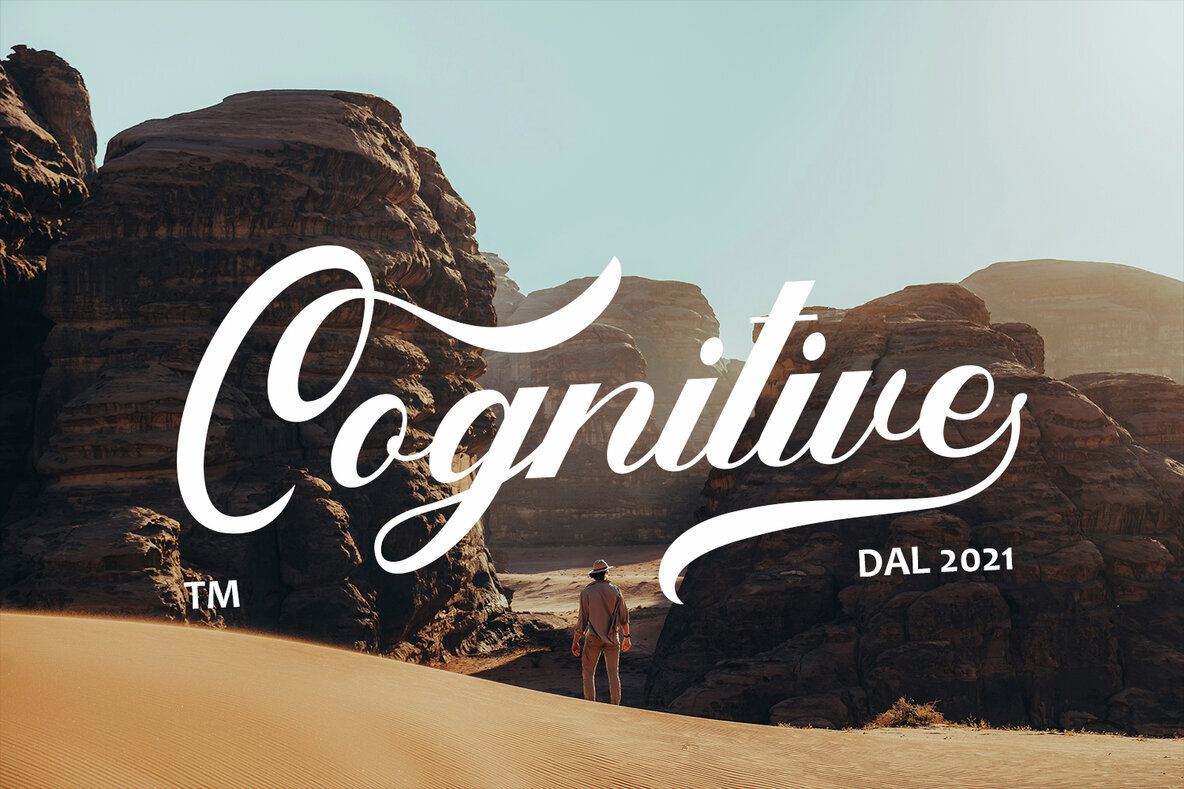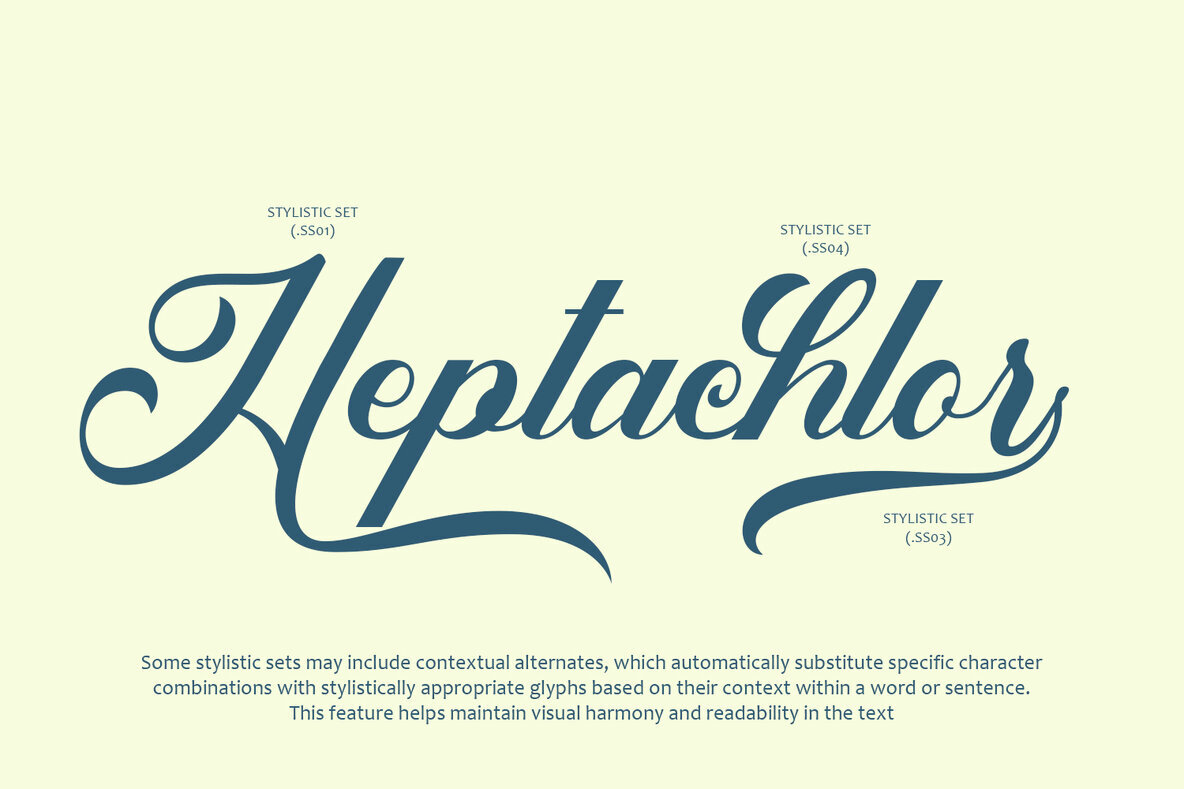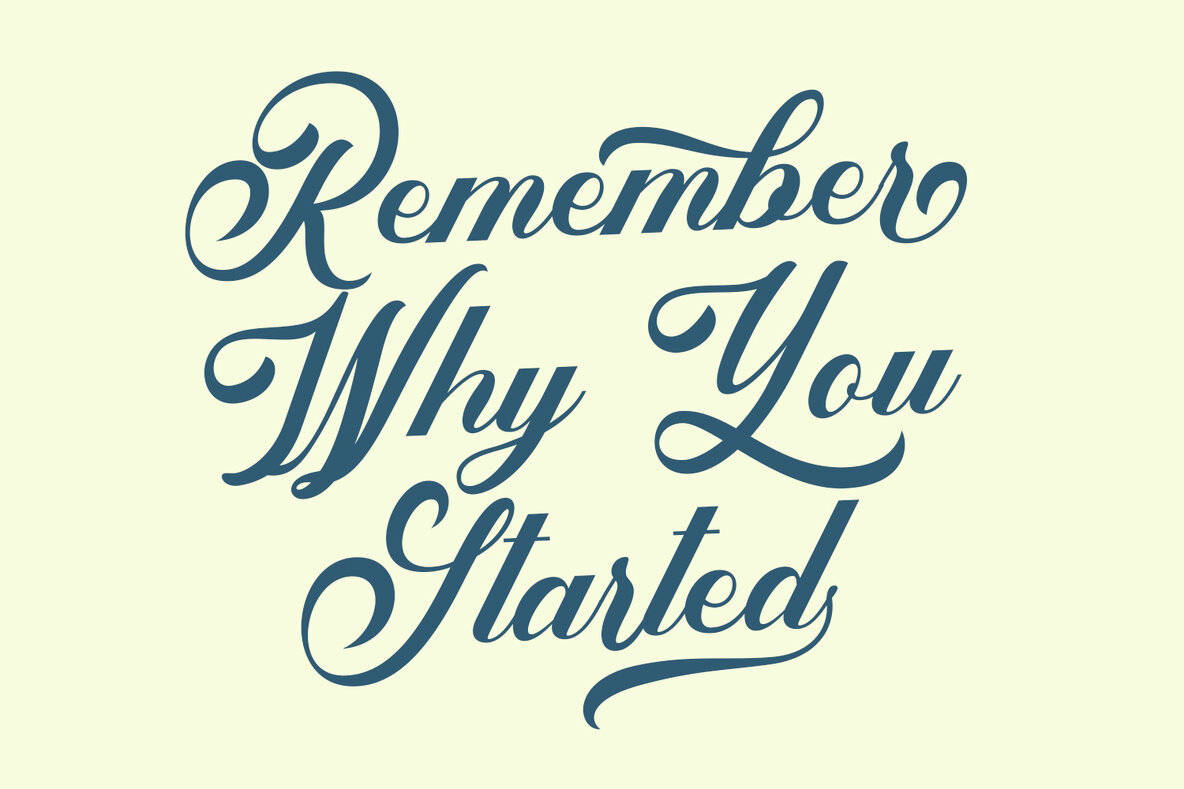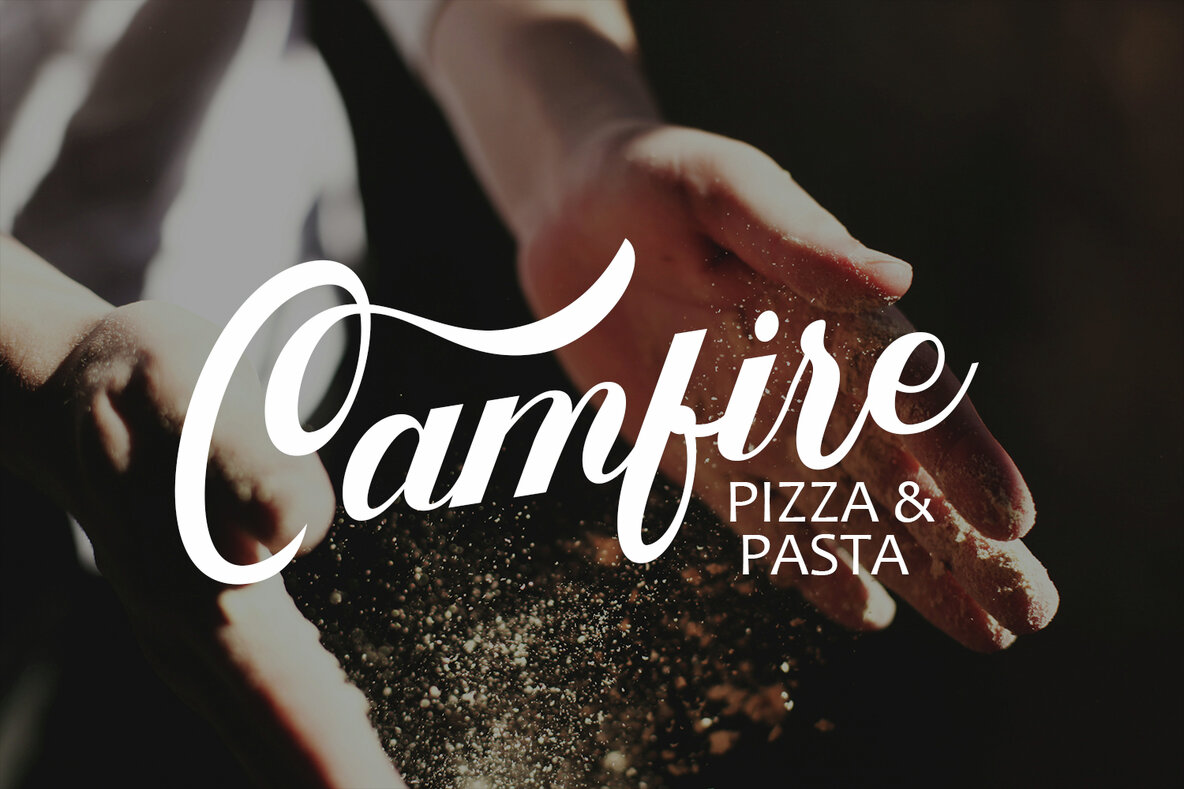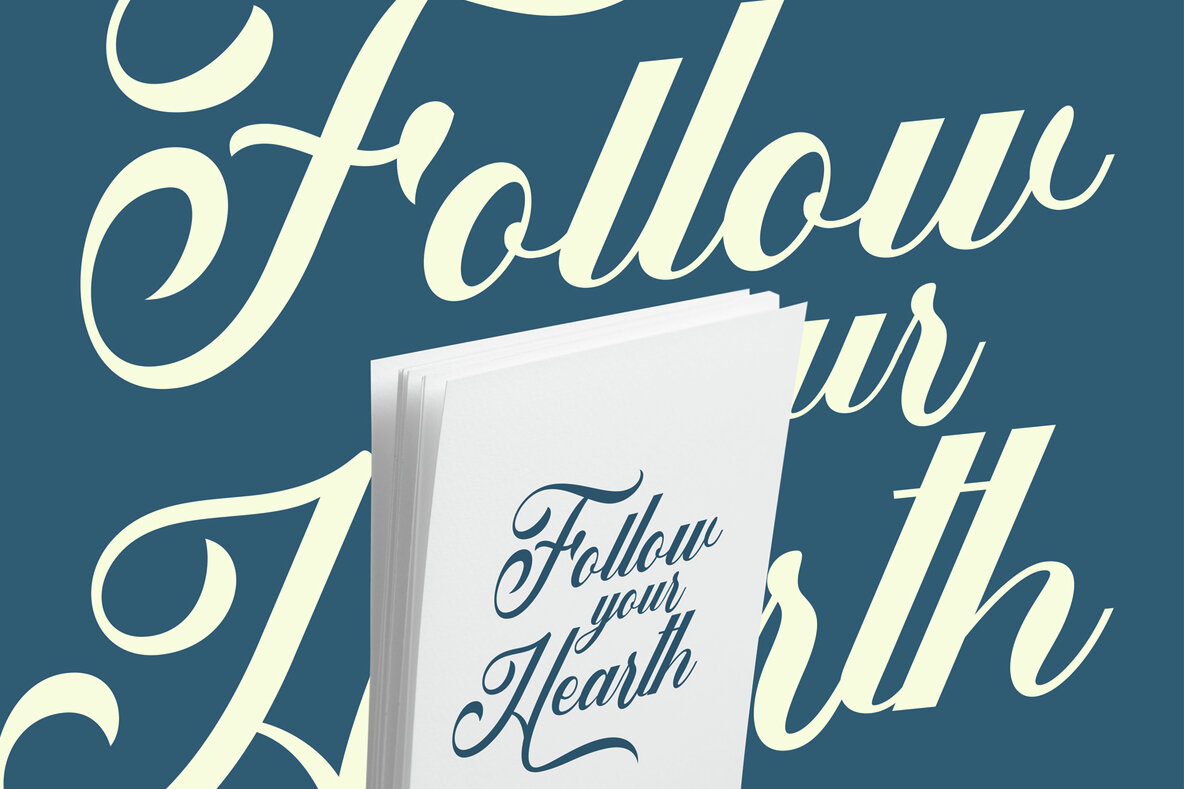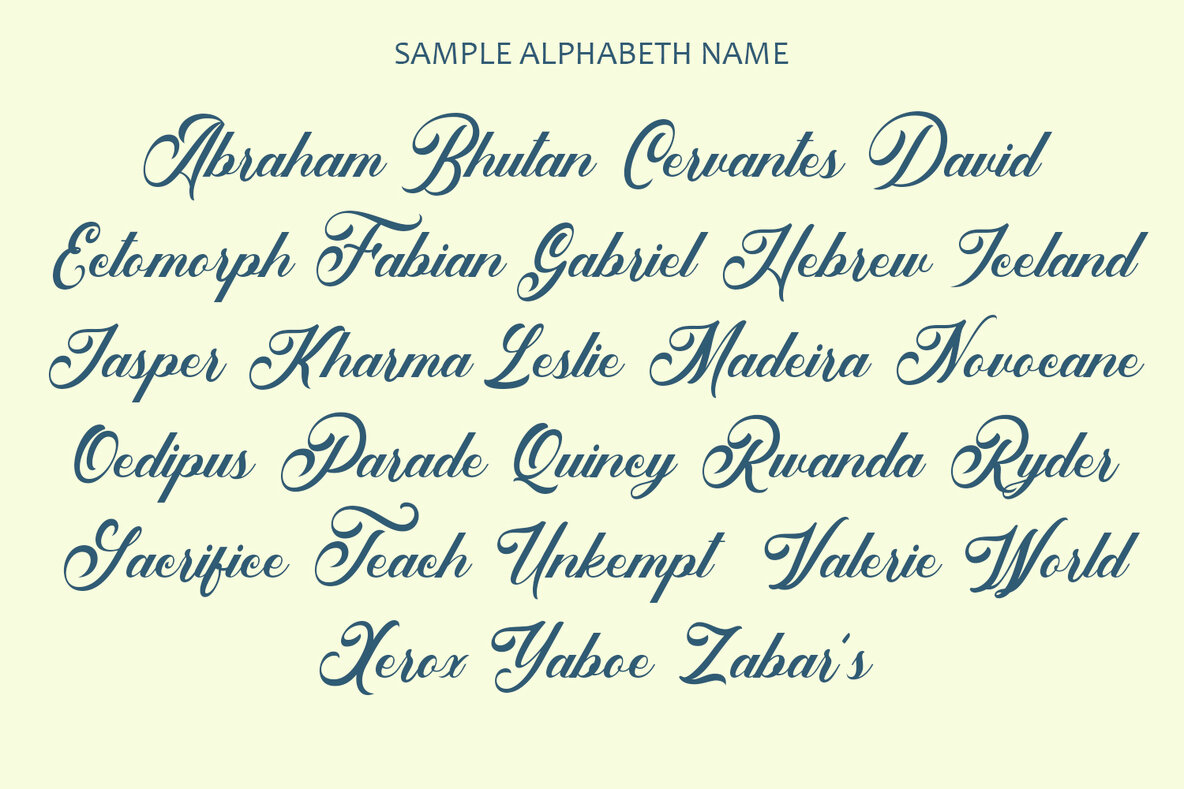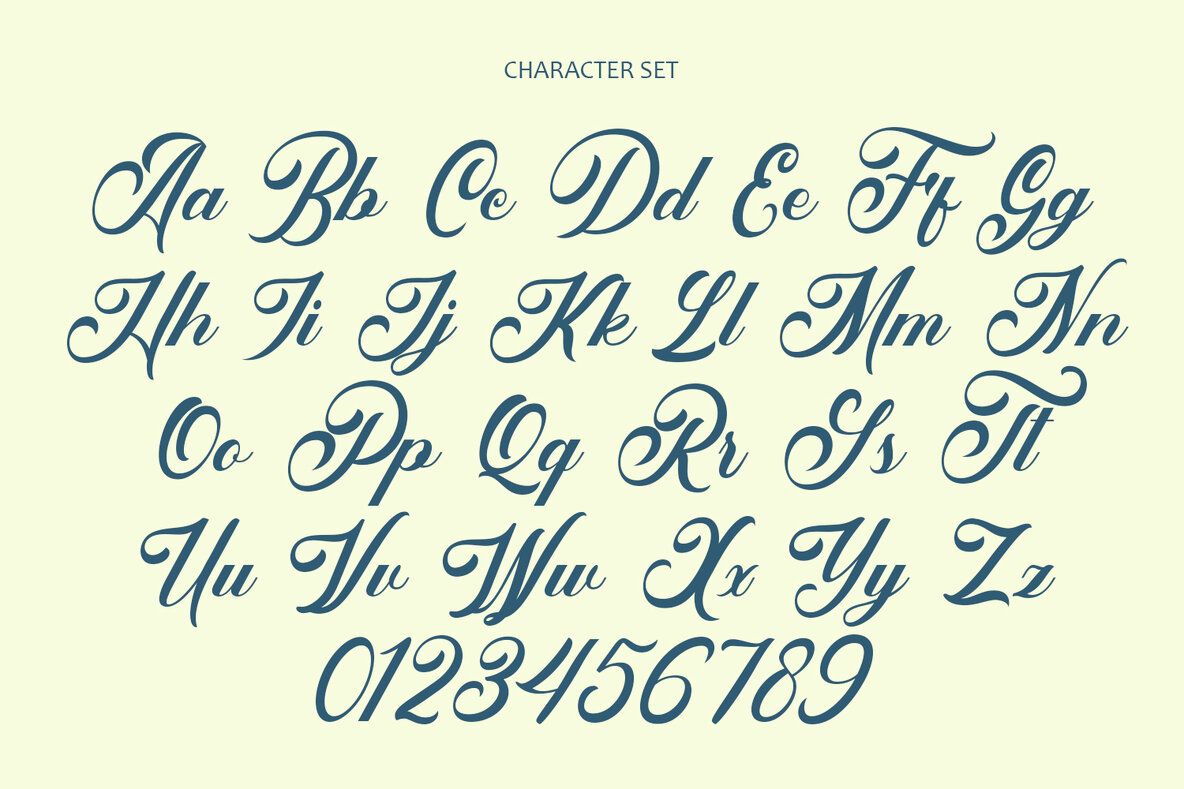
Trawler Font
Trawler
Trawler Classy Script Font exudes timeless elegance and sophistication, making it a standout choice for various design projects. With its graceful letterforms and fluid strokes, this font offers a classic script style that adds a touch of refinement to any design. Perfect for upscale branding, invitations, and signage, Trawler's meticulously crafted details, such as delicately looped ascenders and descenders, graceful curves, and intricate character connections, contribute to its sense of luxury and refinement.
Despite its formal appearance, Trawler is versatile and adaptable to various design contexts. Whether used for wedding invitations, product packaging, editorial layouts, or branding collateral, the font lends an air of class and distinction to any project. Importantly, Trawler remains highly readable and legible, ensuring that messages are communicated clearly and effectively. This balance between style and functionality makes it suitable for both display and body text. Trawler’s distinctive personality and refined aesthetic make it the ideal choice for designers looking to infuse sophistication and charm into their work.